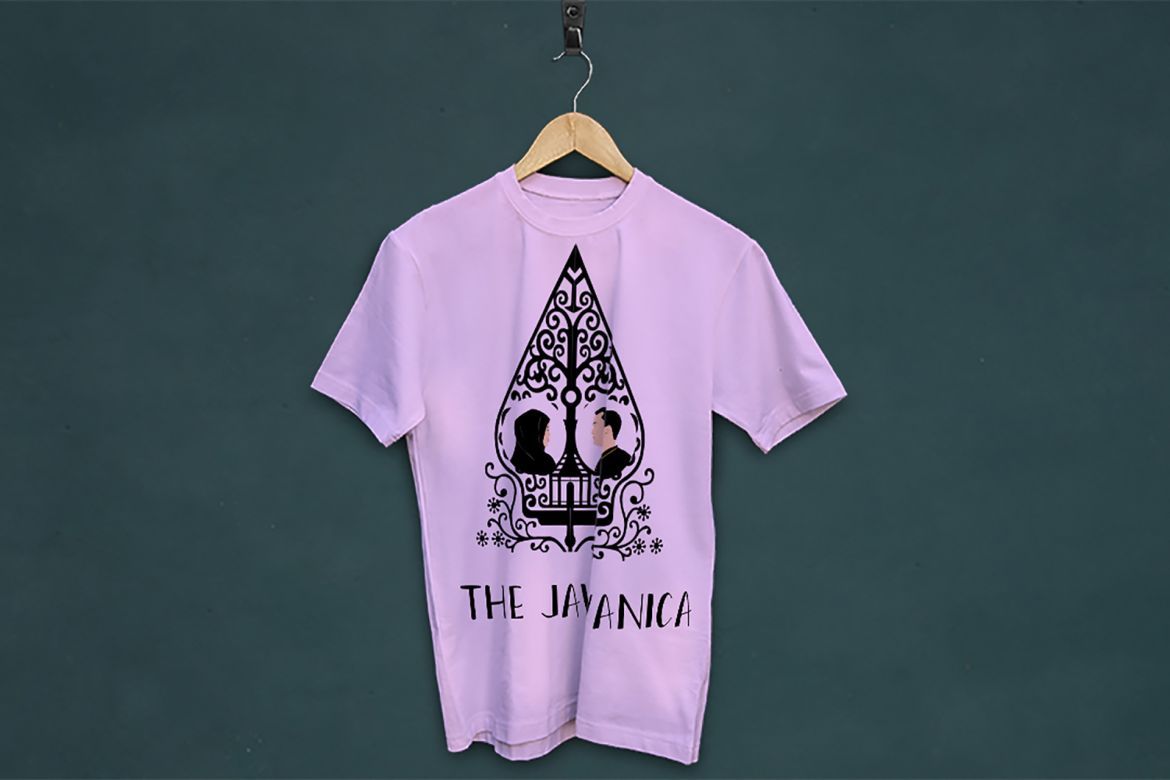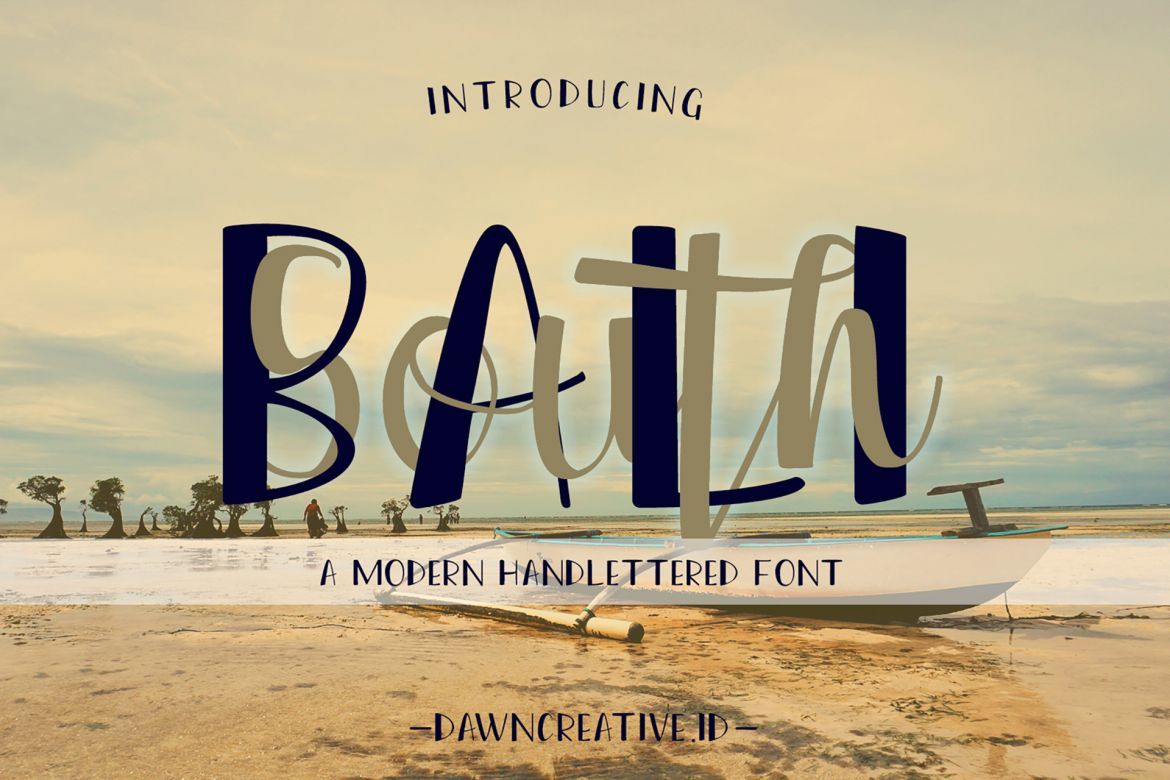
South BALI Font
South Bali - Font is a hand-lettered font that has a modern and elegant style. It will be matched for design, wedding invitation, photography and many more.
• a hand-lettered font that has a modern and elegant style.
• it will be match for design, wedding invitation, photography and many more